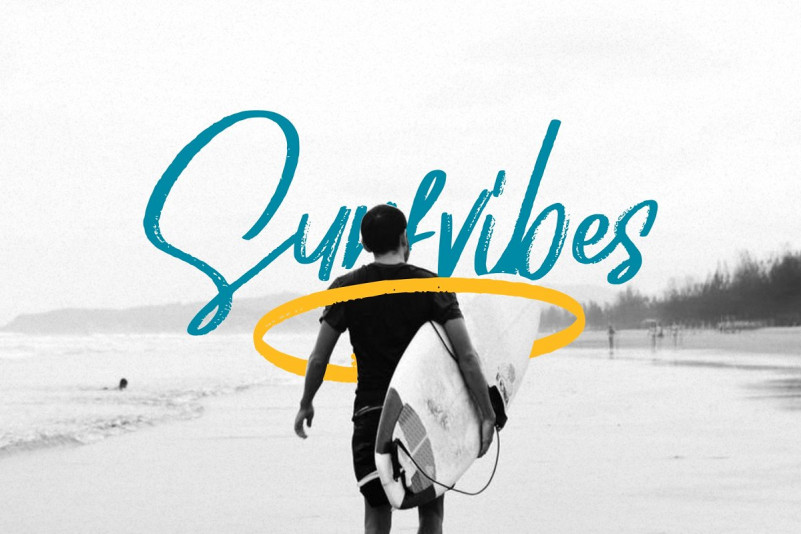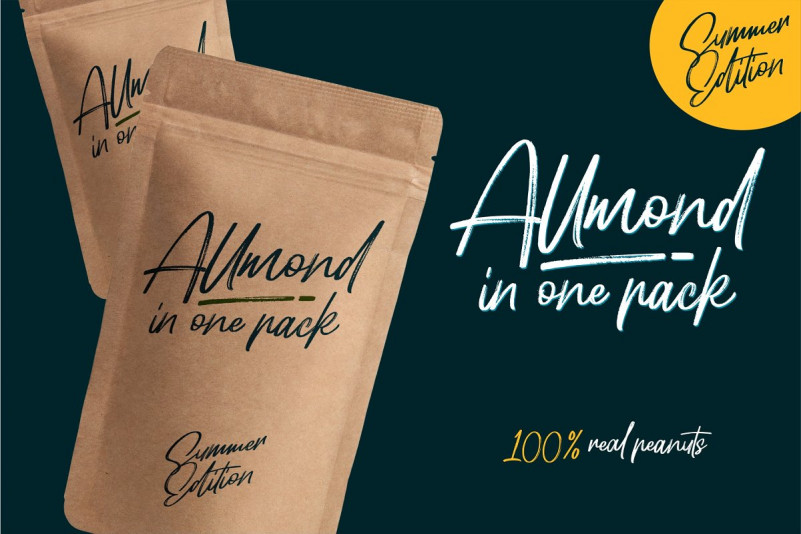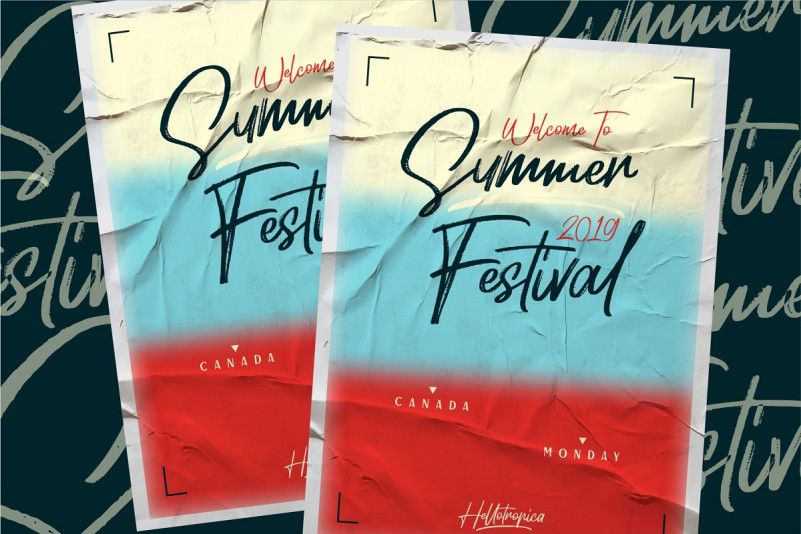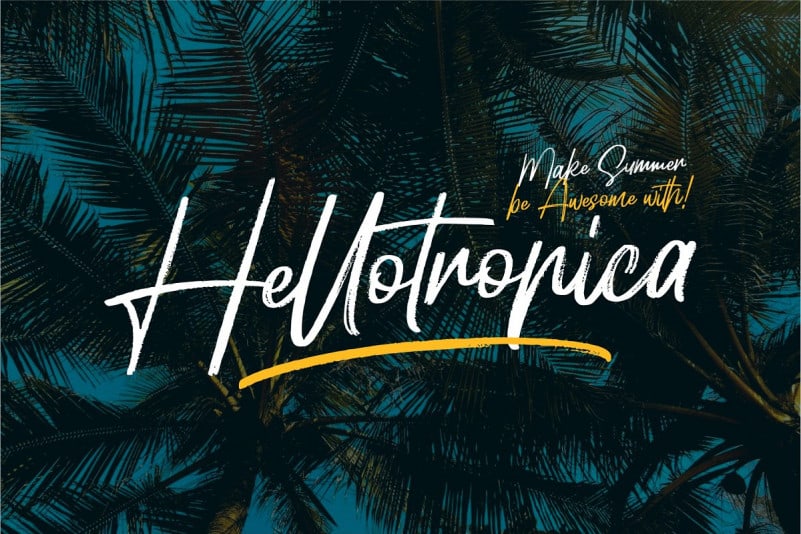
Hellotropica Handbrush Font
Hellotropica Handbrush Demo Font
Hello.. Welcome again! Introducing Hellotropica Brush Font! This font has been designed with high details, precisely, smooth and flow, so it is perfect used as a logotype, custom typeface, tittle, header, or any kind of advertisements purpose. It is designed and shared by Garisman Std. Hellotropica Handbrush Font is made natural handbrushes with the styles for Summer Vibes. With the unique Opentype in it and the ligature will add aesthetic value to your design product. Available in this file are Hellotropica Swash which you can unite into an amazing design.